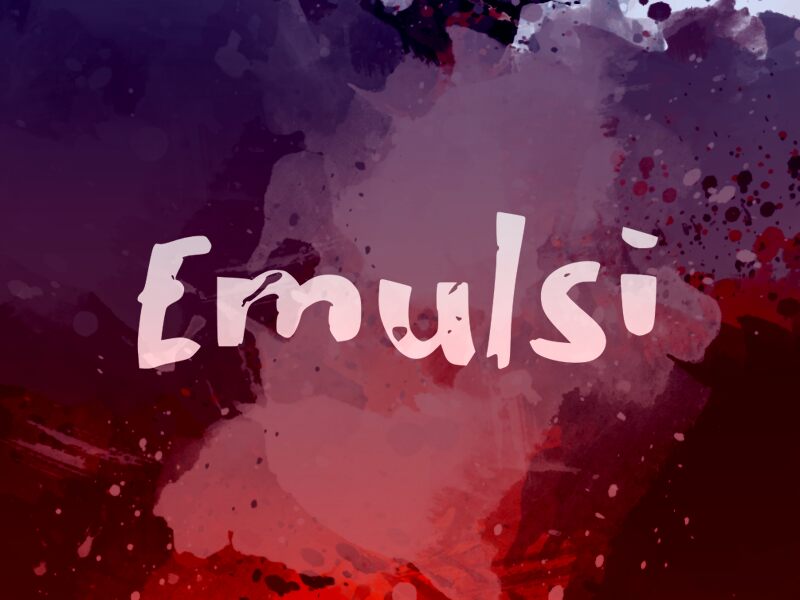
Emulsi
Emulsi, the breathtaking creation by wep, is a bold brush font that immerses projects in an artistic aura. With its sweeping strokes and expressive curves, this typeface injects a touch of modernity and sophistication into any design. Emulsi's versatility makes it perfect for various creative endeavors, such as album covers, fashion magazines, logo branding, and invitations that demand attention. Its strong presence beautifully complements websites seeking to evoke emotion or stand out from the crowd. Embrace the power of Emulsi and watch your projects flourish with its bold charm and captivating appeal.